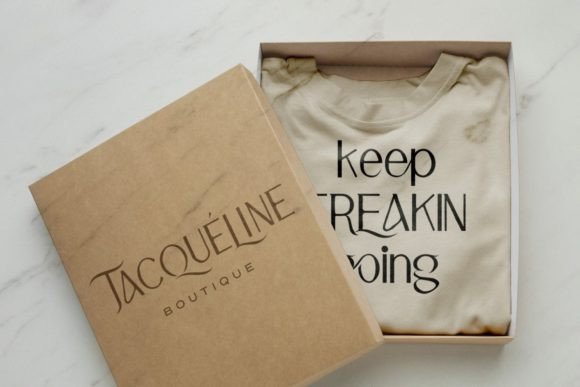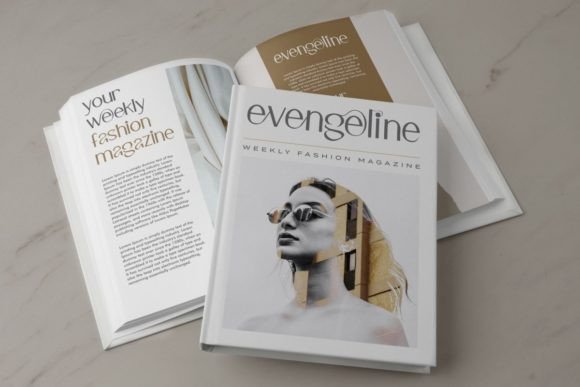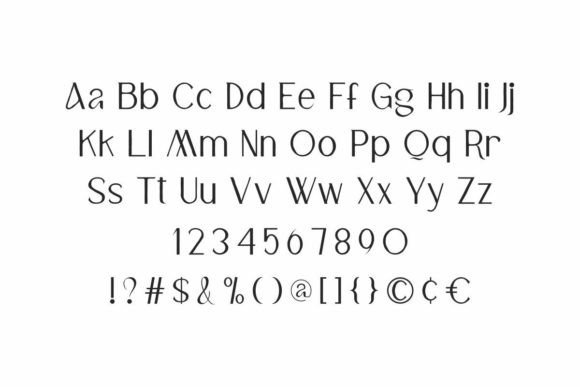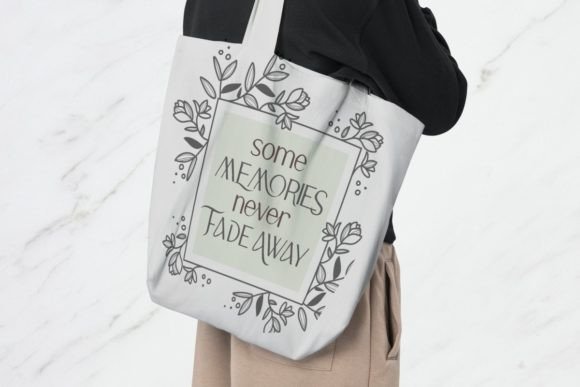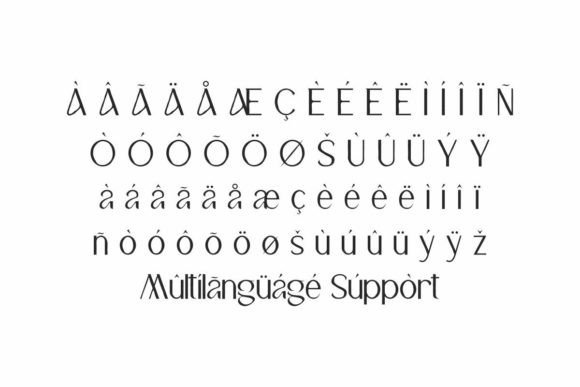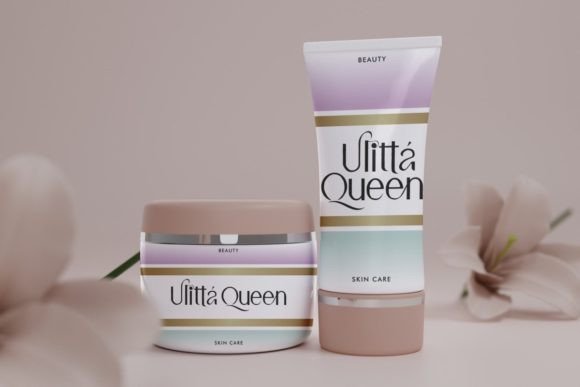
Introduction to Margrave Font
Margrave Font is an elegant and stunning display font.
Unique and luxurious letter shapes with ligatures, keeping its legibility high This is a stylish modern sans serif font with a trendy casual and chic style.